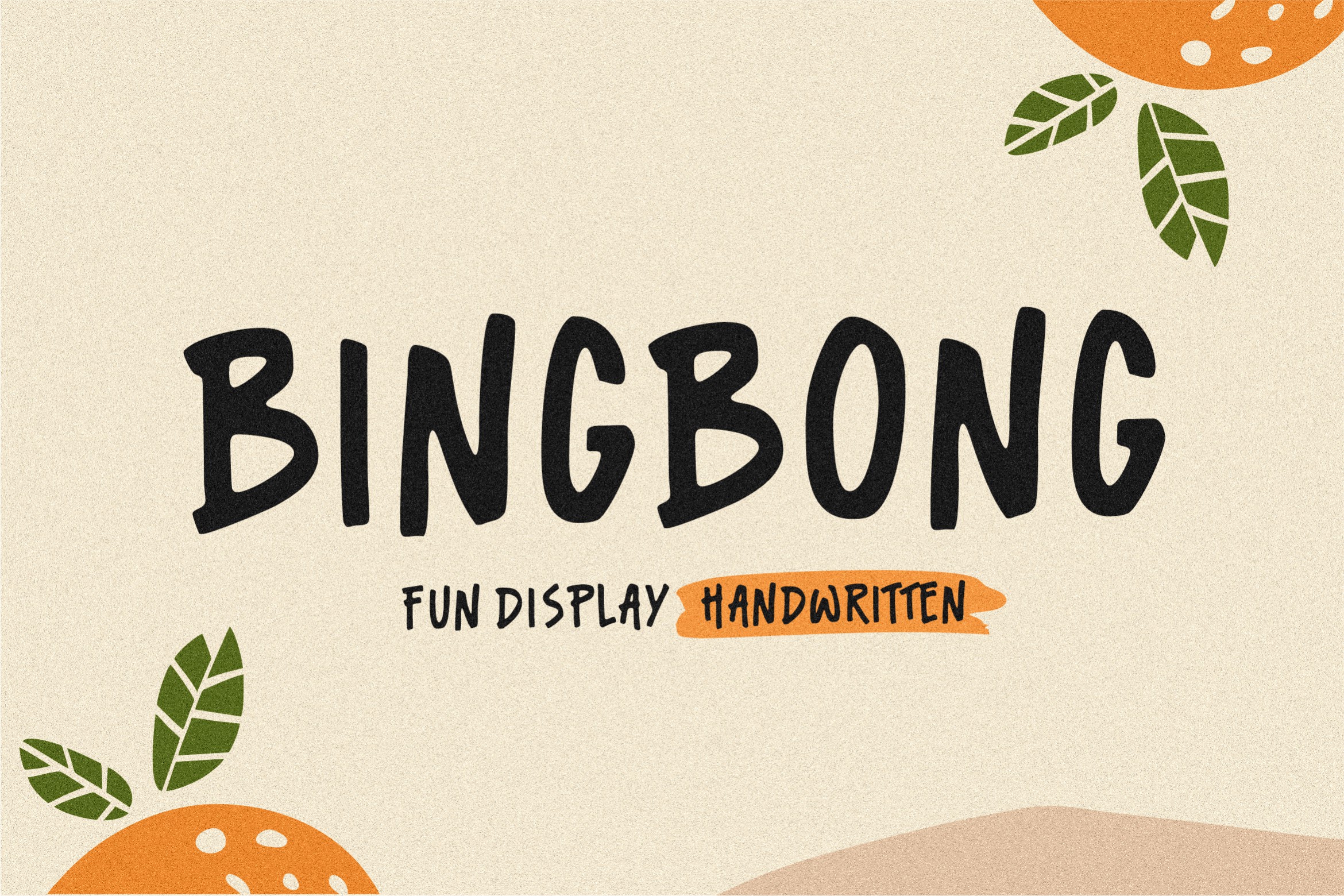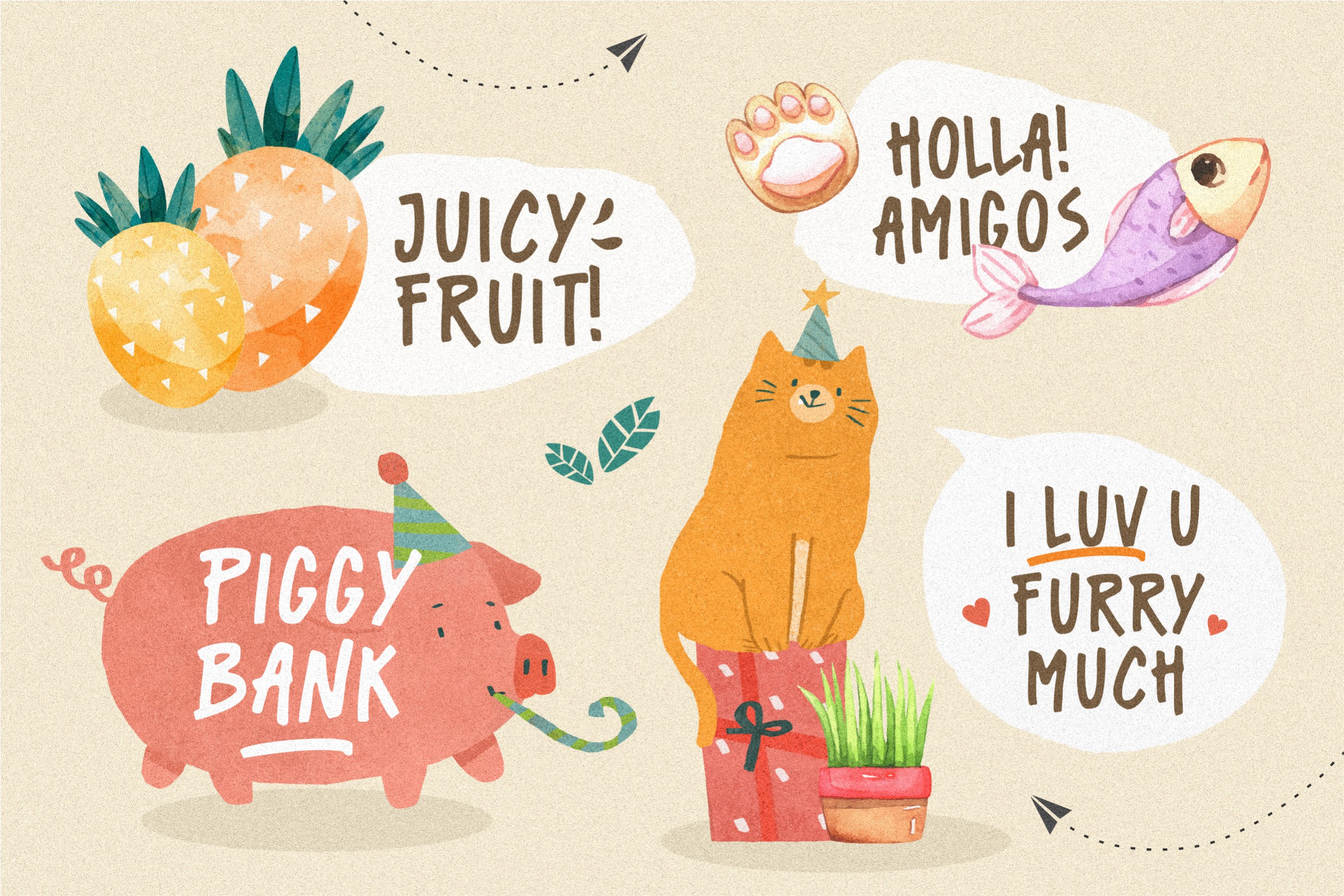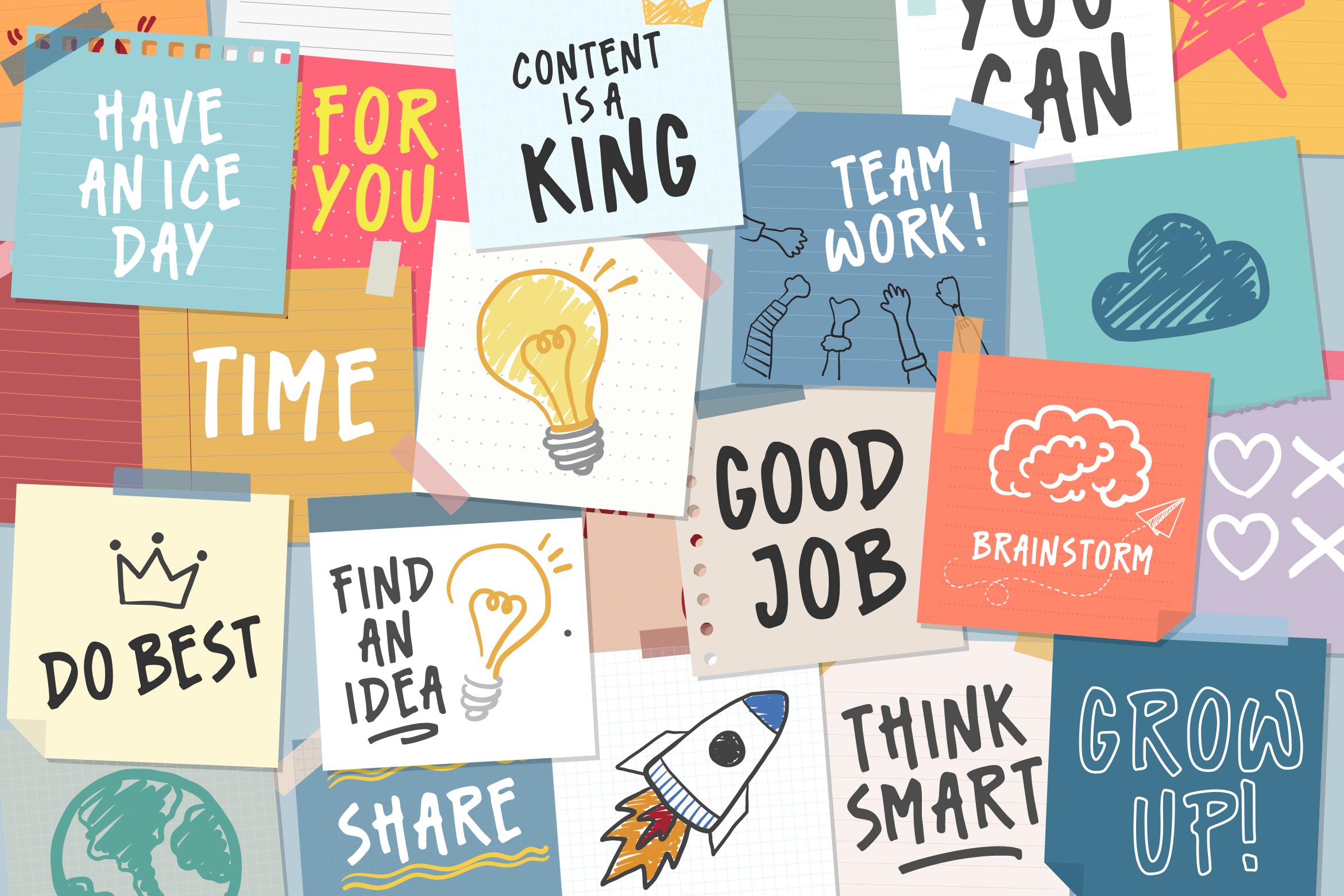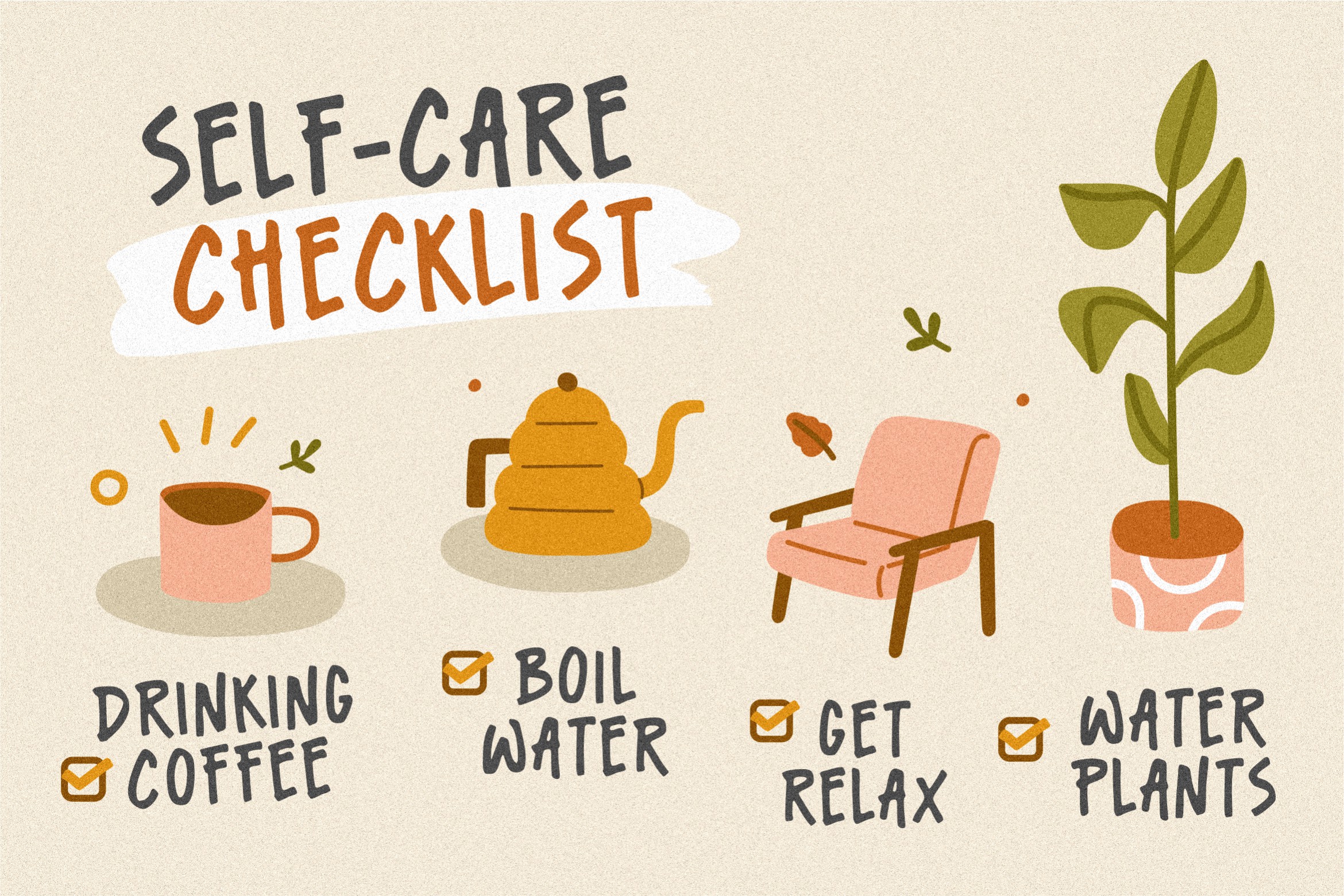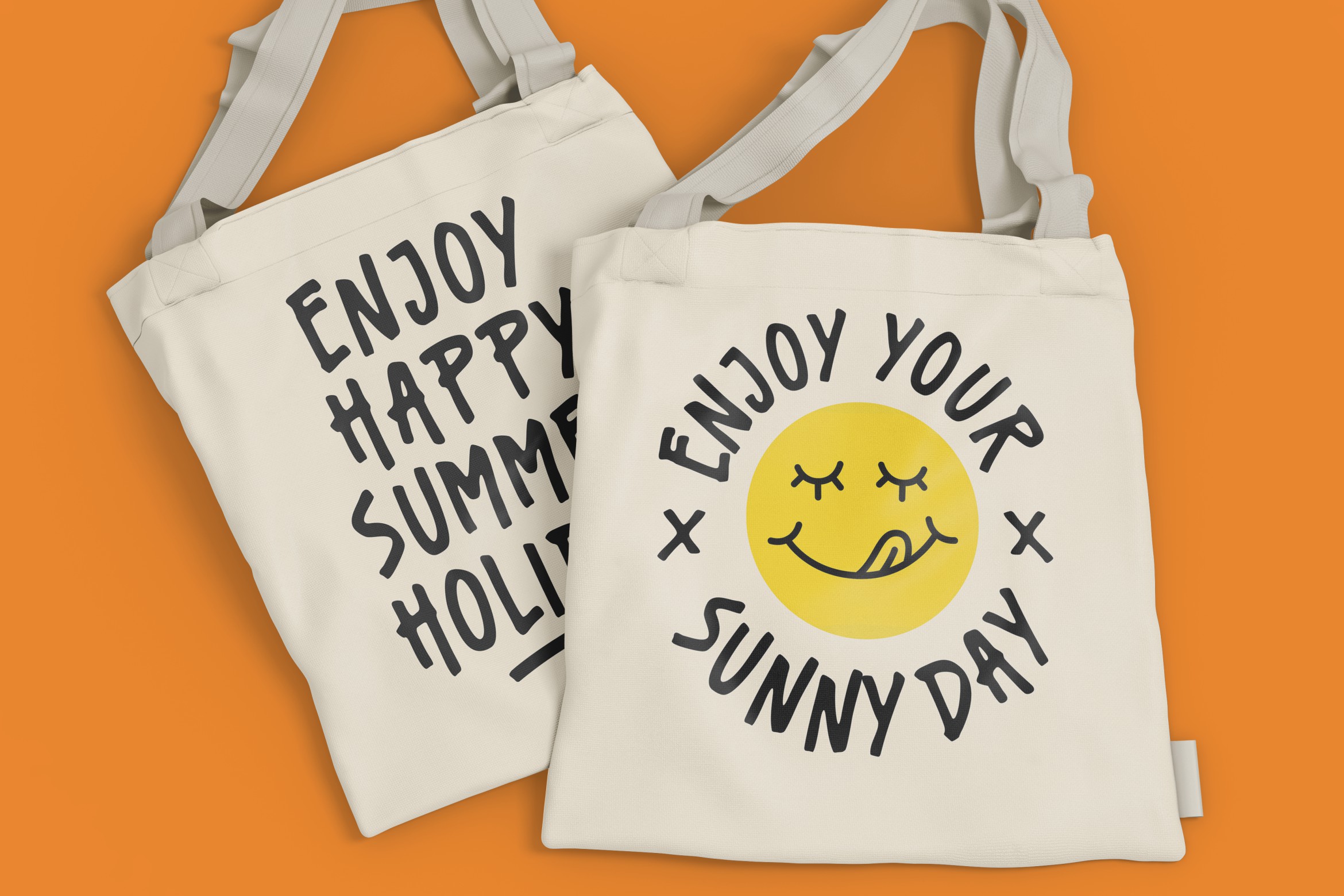
Bingbong Display Font
It’s a fun and cheerful allcaps handwritten font display. This font is suitable for handwriting logos, T-shirts, merchandise, quotes, social media posts, advertising, and a lot more! Bingbong comes with an accent language. This purchase includes a TTF, OTF, & WOFF font file.